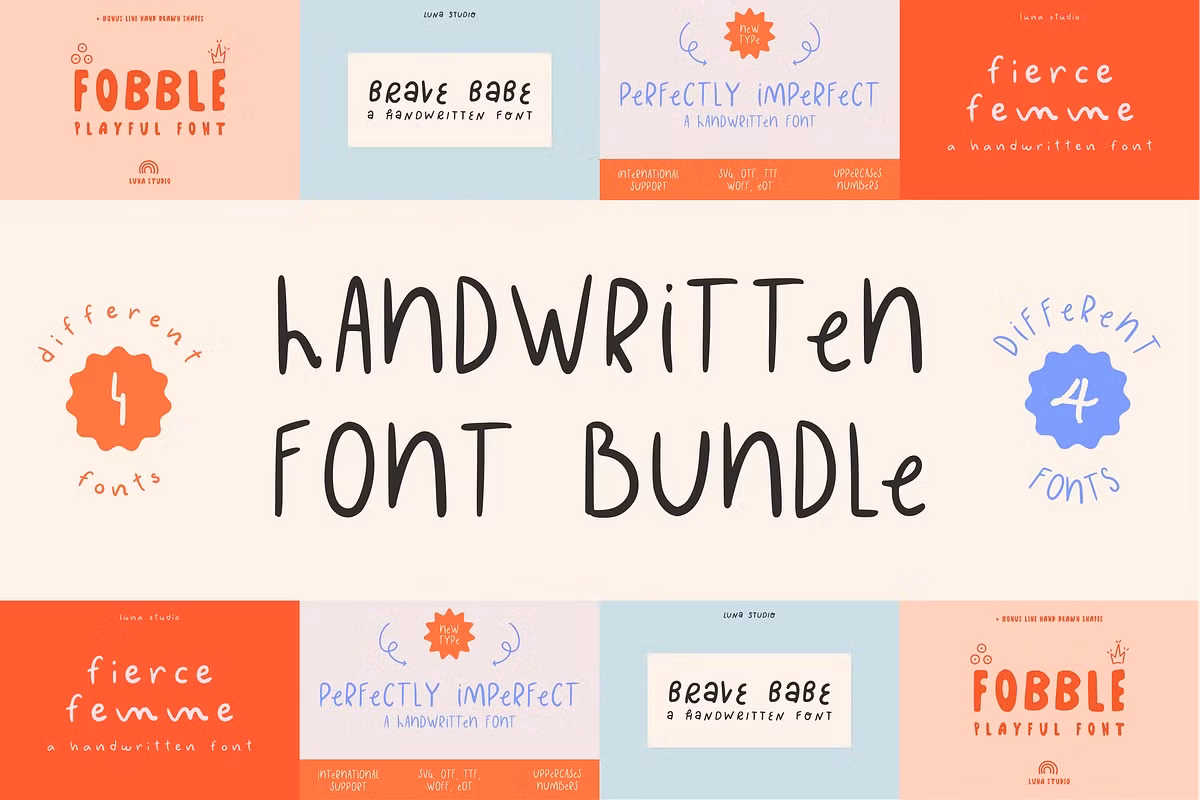
The Cute Handwritten Font Bundle Free Download
The Cute Handwritten Font Bundle Free Download is a delightful collection of charming and playful handwritten fonts, designed to add a personal touch to your creative projects. Featuring a variety of styles, from lighthearted scripts to bold and expressive designs, this bundle is perfect for crafting logos, invitations, branding materials, social media posts, and more. Whether you're designing for a children's brand, a fun event, or creating personalized content, The Cute Handwritten Font Bundle Free Download offers you the flexibility to mix and match different fonts for a unique, cohesive design. Experiment with its cute and playful style in personal projects before purchasing a commercial license, and bring a warm, friendly vibe to your designs with this beautifully crafted bundle.